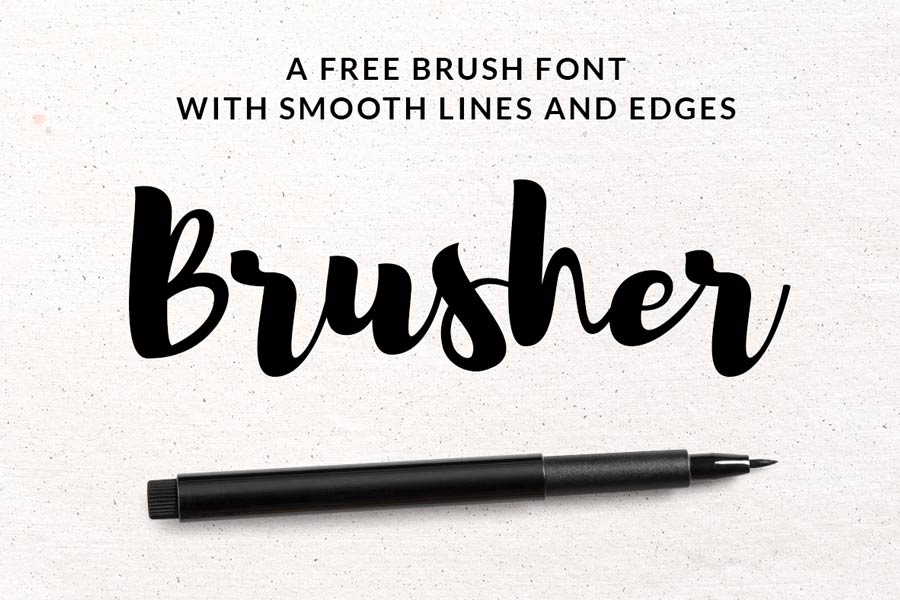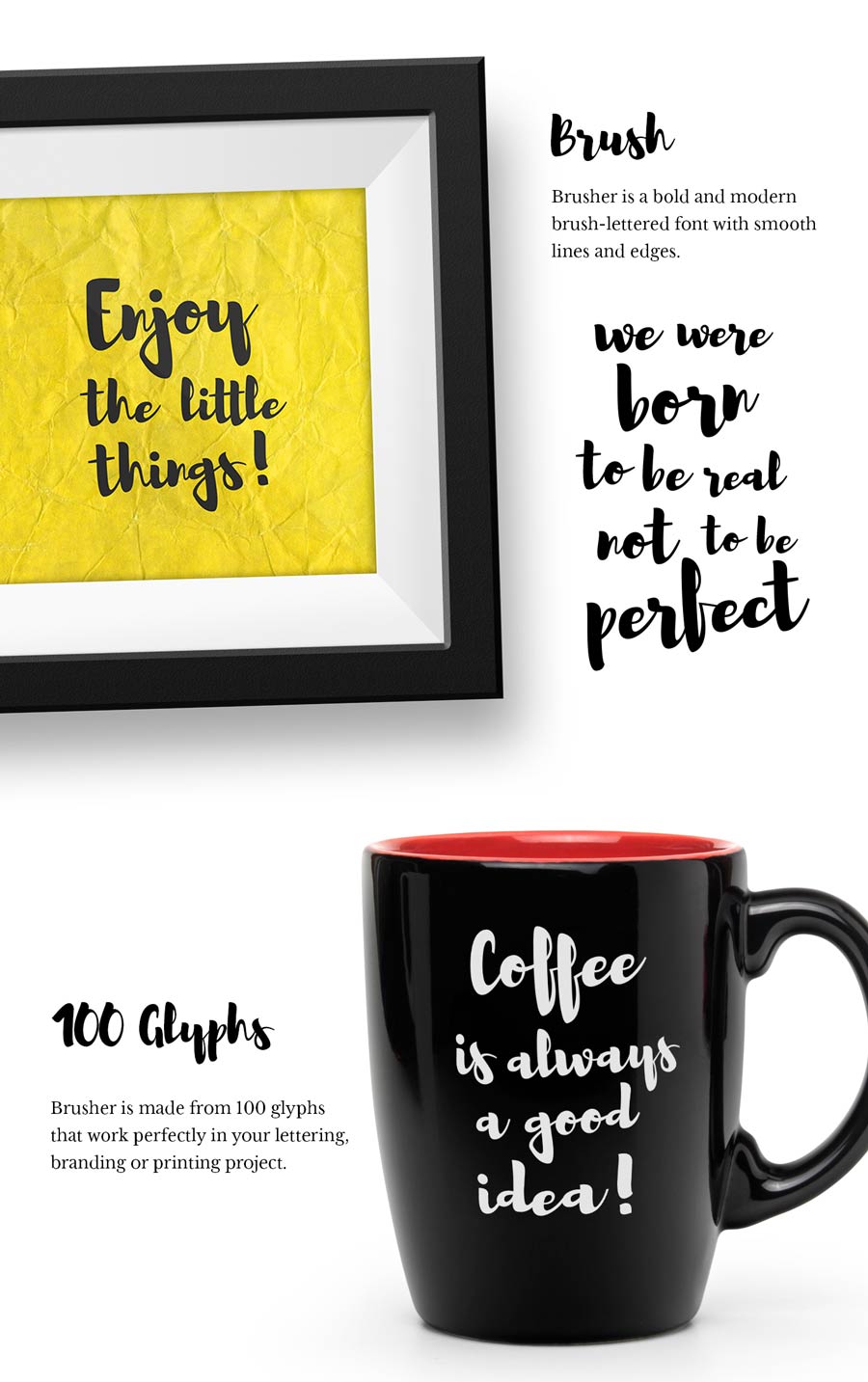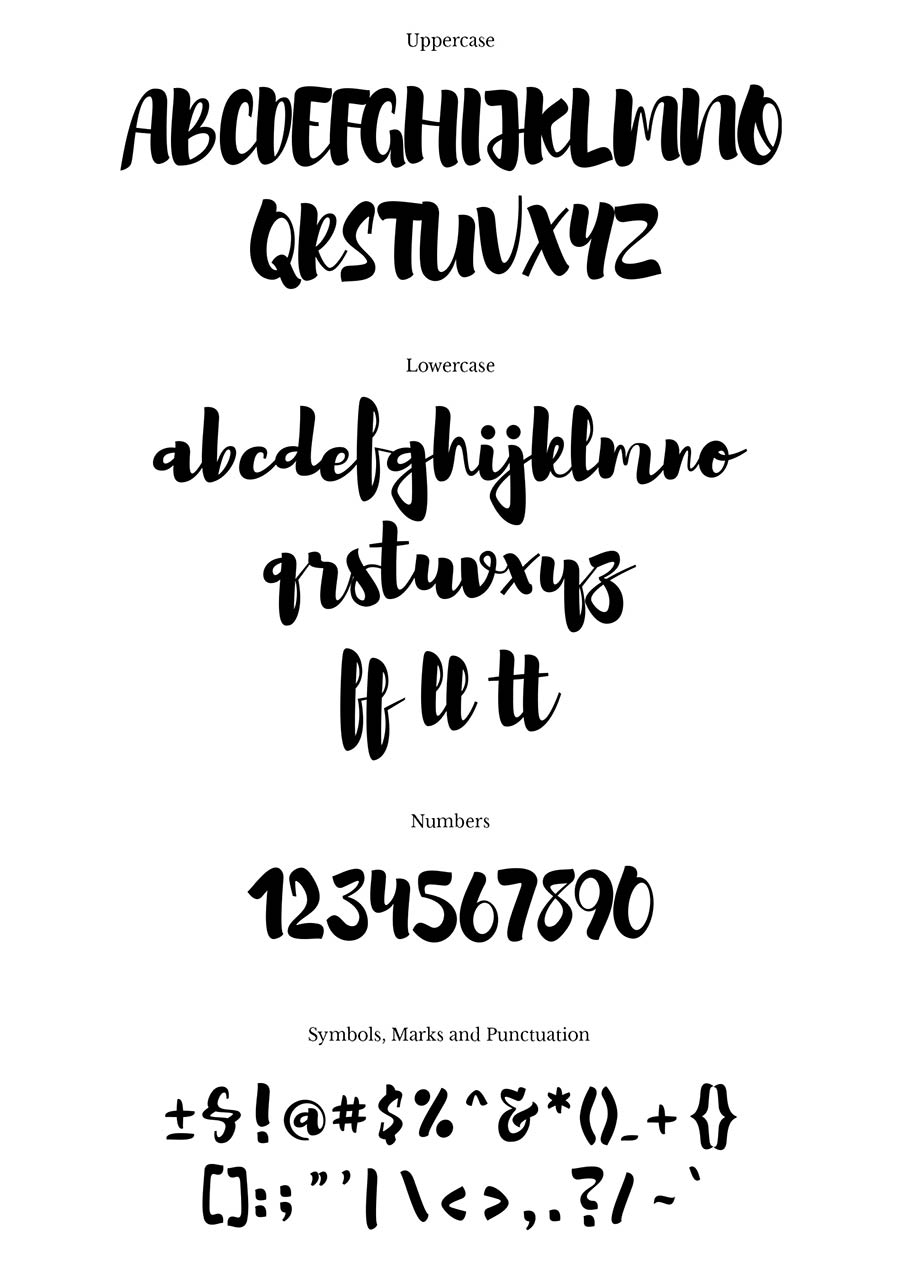
Brusher is a bold and modern brush-lettered free font that is free to download and can be used on both personal and commercial projects. Like many other handlettering and brush fonts, Brusher works great for prints and typographical designs.